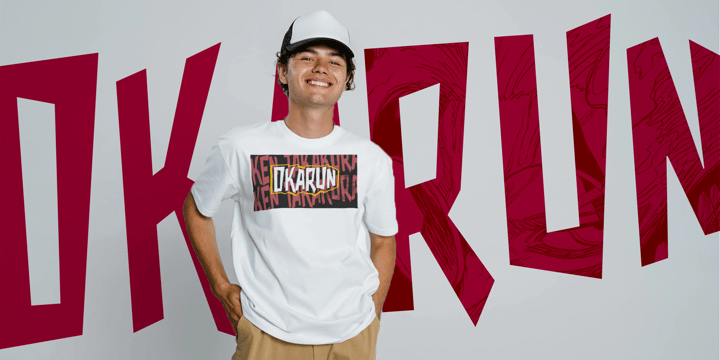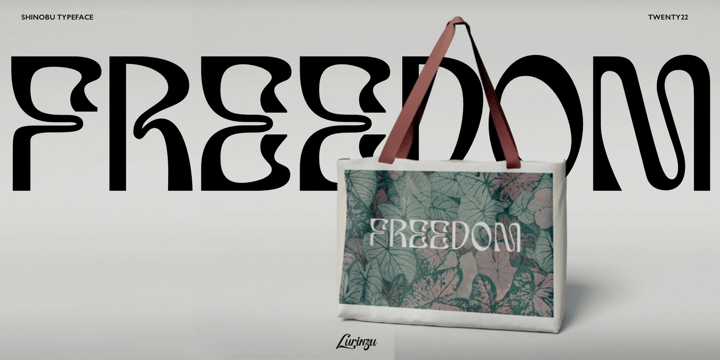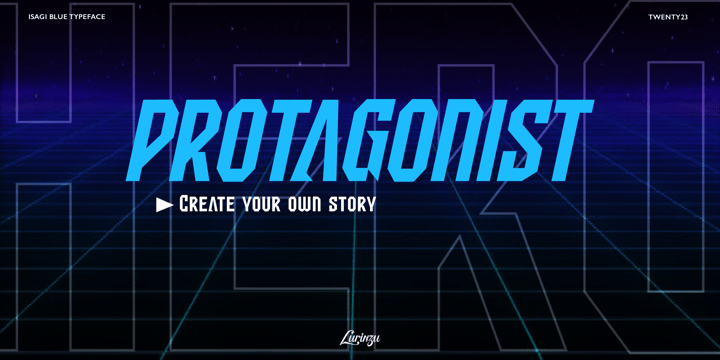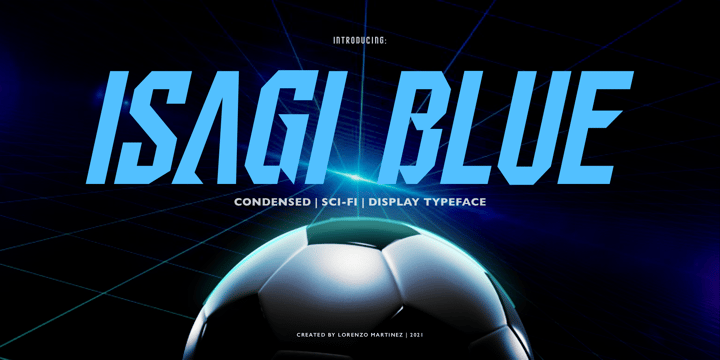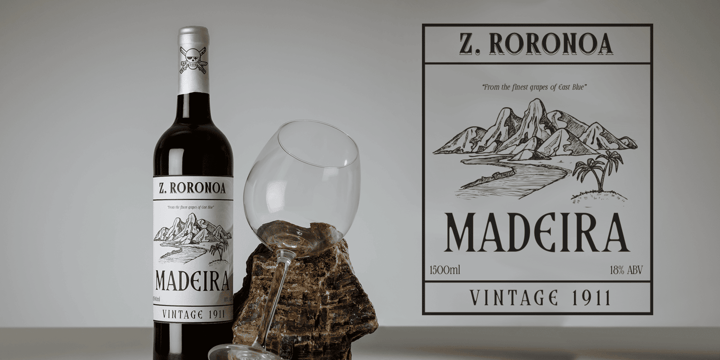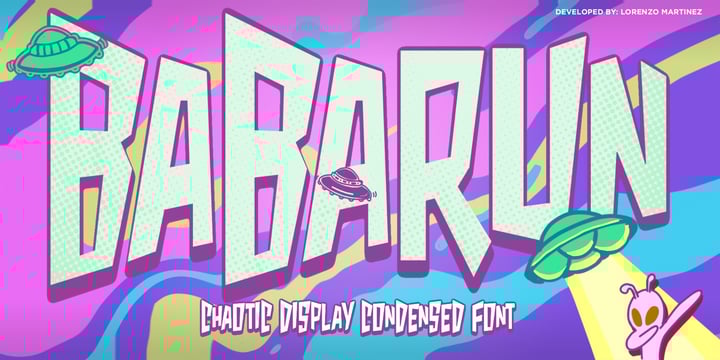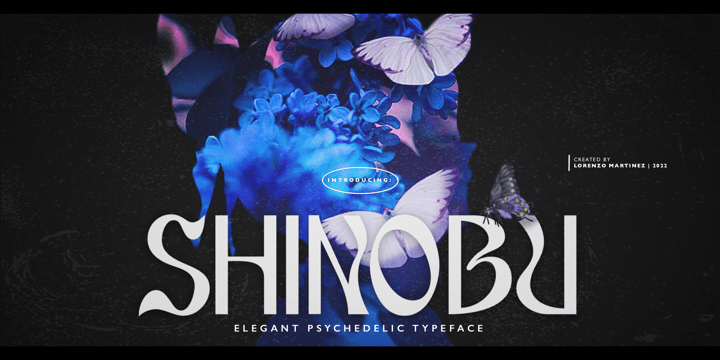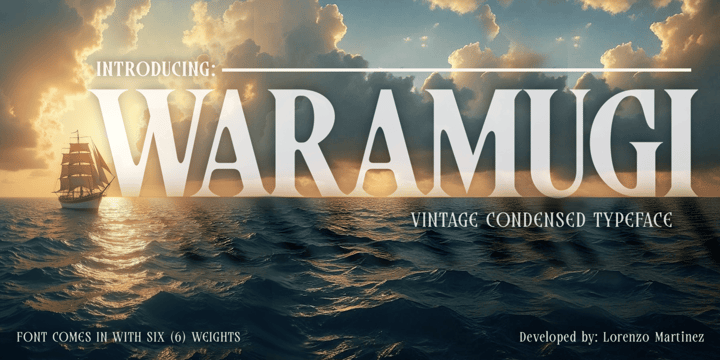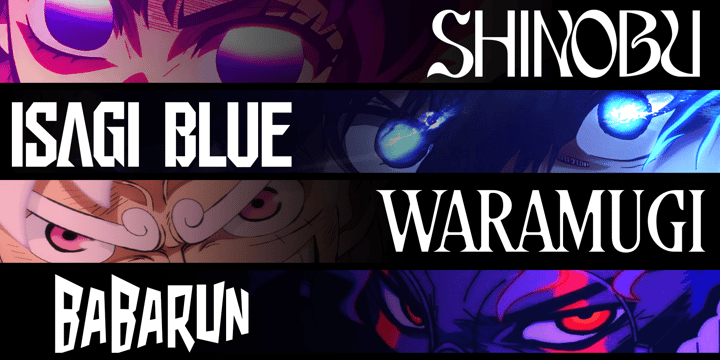
Otaku Type Collection
Otaku Type Collection is a curated set of four high-impact display fonts: Babarun, Isagi Blue, Shinobu, and Waramugi!
Four (4) distinct typefaces designed for creative professionals seeking to merge bold typography with the dynamic energy of anime culture. Inspired by Japanese graphic storytelling, each typeface offers a distinct voice: from the sharp athleticism of shōnen action to the graceful minimalism found in slice-of-life
This bundle is ideal for use in branding, editorial design, motion graphics, packaging, esports visuals, and expressive headlines. Each font features versatile glyph sets, multilingual support, and polished kerning, ready to perform across both print and digital platforms.
Whether you’re building a youth-oriented brand, designing pop culture packaging, or seeking a stylized font with personality, the Otaku Type Collection bridges the gap between entertainment-driven emotion and professional-grade execution.
Bring cinematic character to your work without sacrificing typographic integrity.